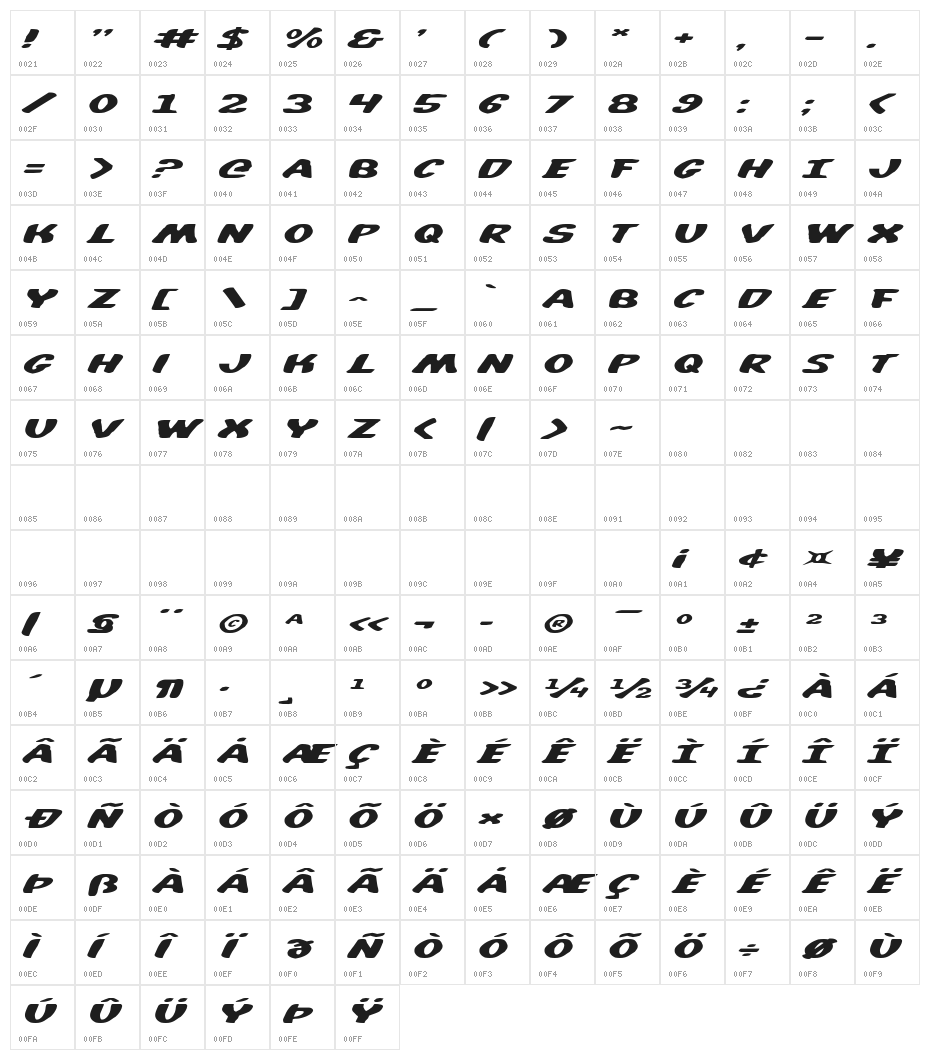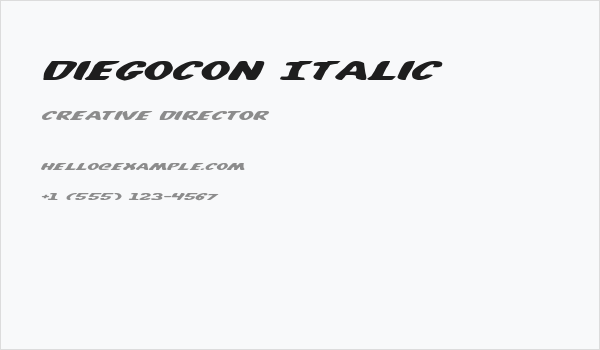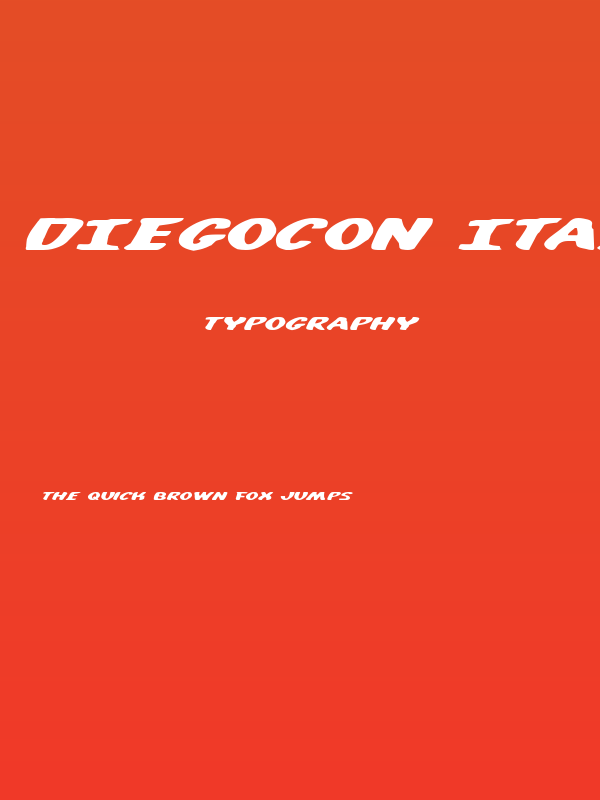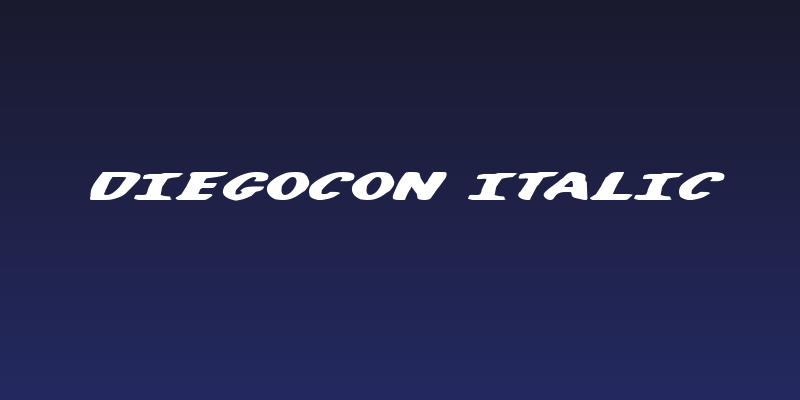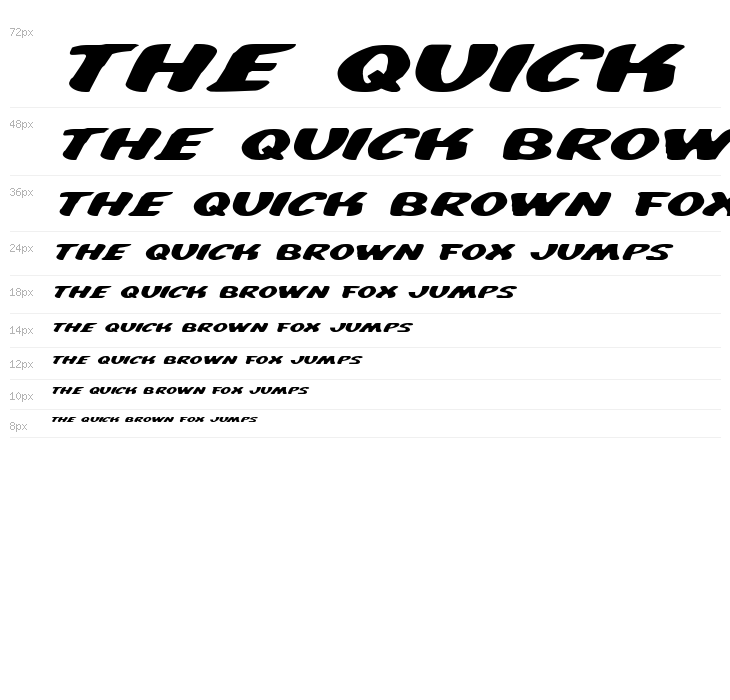
DiegoCon Italic Font
DiegoCon Italic Description
This font features a bold and dynamic italic style, characterized by its thick strokes and slanted orientation. The letters are robust and convey a sense of movement and energy, making it suitable for attention-grabbing designs. The uppercase and lowercase letters maintain a consistent style, with rounded edges and a slight slant that enhances its fluidity. The numerals and special characters are designed to match the boldness and slant of the alphabet, ensuring a cohesive look across all characters. This font's strong presence and unique style make it ideal for impactful visual communication.
| Proposed Projects | Ideal for sports branding, dynamic posters, and bold headlines. |